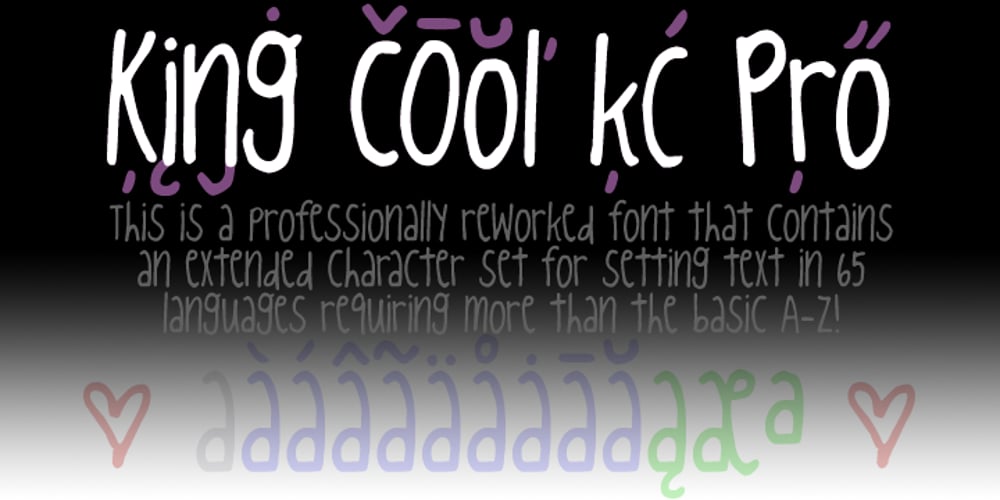
King Cool KC Pro Font Family was designed by Roger S. Nelsson, Kimberly Geswein and published by CheapProFonts. King Cool KC Pro contains 1 styles and family package options. A funny and quirky handwritten script – with an original “monoheight” letter design. It is cute and adorable, and now available for setting text in most latin-based languages. ALL fonts from CheapProFonts have very extensive language support: They contain some unusual diacritic letters (some of which are contained in the Latin Extended-B Unicode block) supporting: Cornish, Filipino (Tagalog), Guarani, Luxembourgian, Malagasy, Romanian, Ulithian and Welsh. They also contain all glyphs in the Latin Extended-A Unicode block (which among others cover the Central European and Baltic areas) supporting: Afrikaans, Belarusian (Lacinka), Bosnian, Catalan, Chichewa, Croatian, Czech, Dutch, Esperanto, Greenlandic, Hungarian, Kashubian, Kurdish (Kurmanji), Latvian, Lithuanian, Maltese, Maori, Polish, Saami (Inari), Saami (North), Serbian (latin), Slovak(ian), Slovene, Sorbian (Lower), Sorbian (Upper), Turkish and Turkmen. And they of course contain all the usual “western” glyphs supporting: Albanian, Basque, Breton, Chamorro, Danish, Estonian, Faroese, Finnish, French, Frisian, Galican, German, Icelandic, Indonesian, Irish (Gaelic), Italian, Northern Sotho, Norwegian, Occitan, Portuguese, Rhaeto-Romance, Sami (Lule), Sami (South), Scots (Gaelic), Spanish, Swedish, Tswana, Walloon and Yapese.